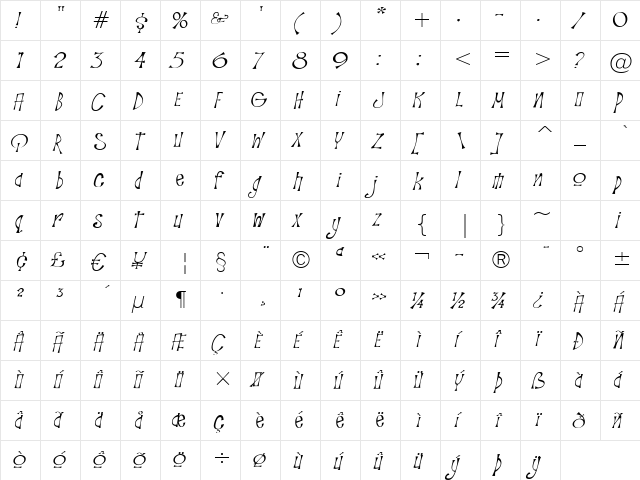
Troutkings BTN Light Oblique
Design Context for Troutkings BTN Light Typeface
Troutkings BTN Light is a composed and adaptable typeface that performs quietly and consistently across a wide range of design contexts. Its italic angle brings a sense of urgency and motion to the letterforms. The delicate stroke weight brings airiness and refinement to layouts.
Pro Tip: Use Troutkings BTN Light for emphasis, pull quotes, and subheadings where its slanted energy can add rhythm to the layout.